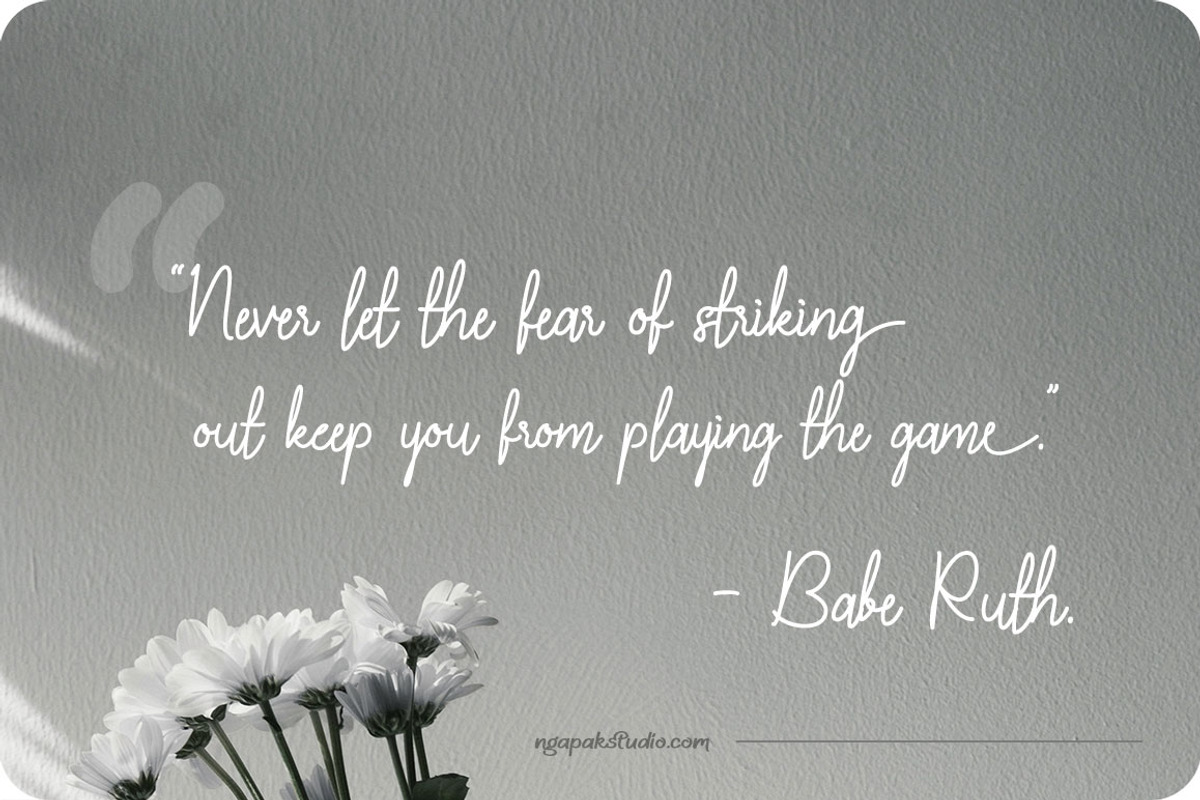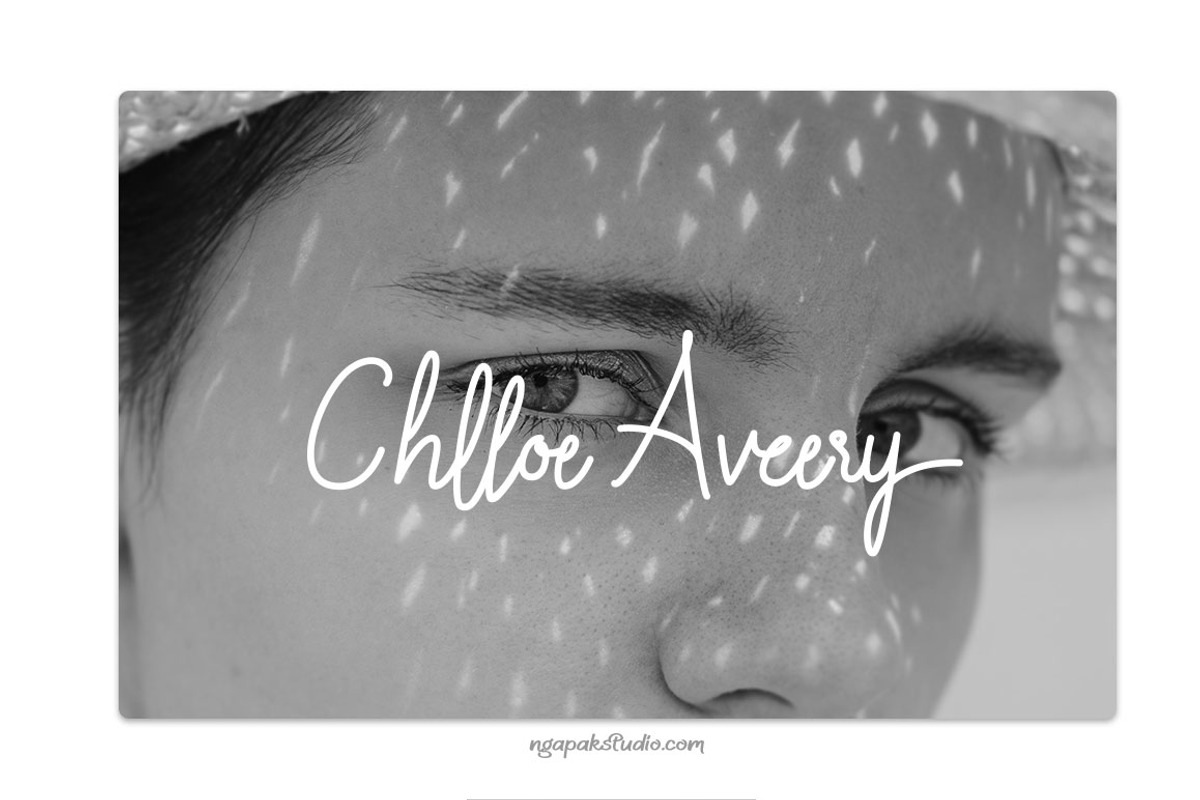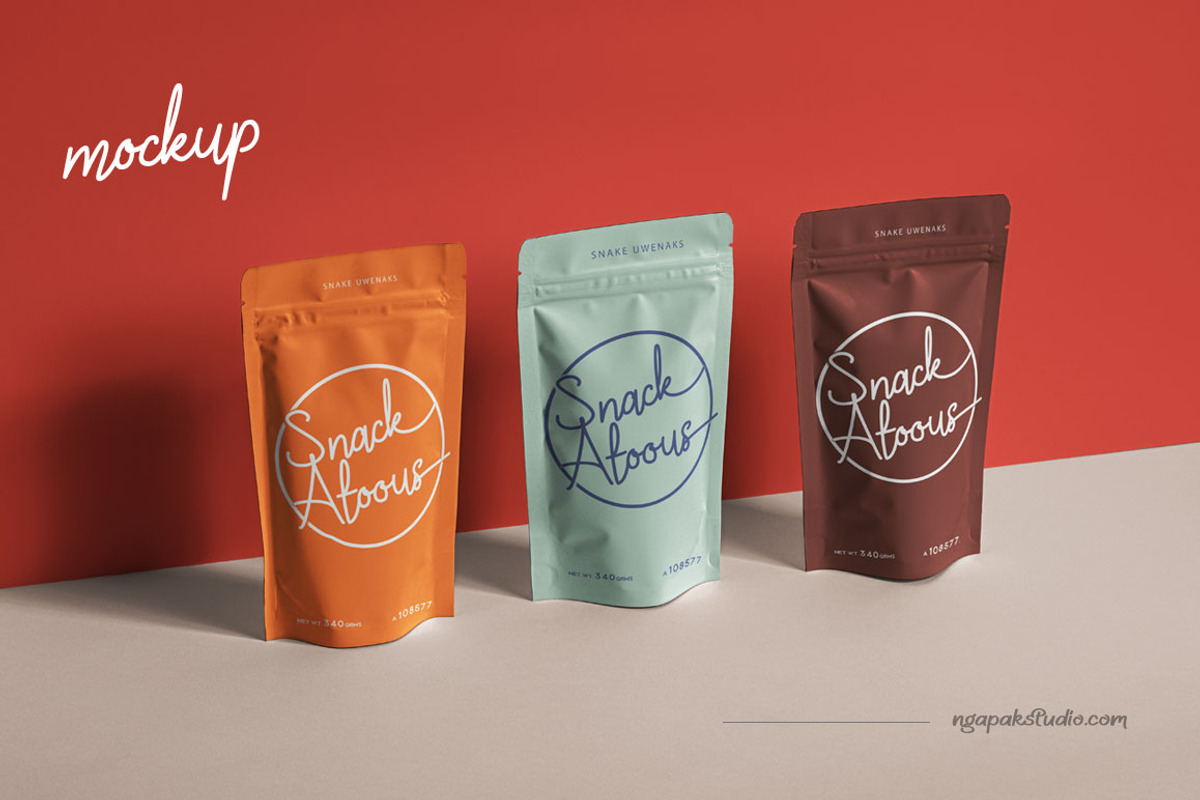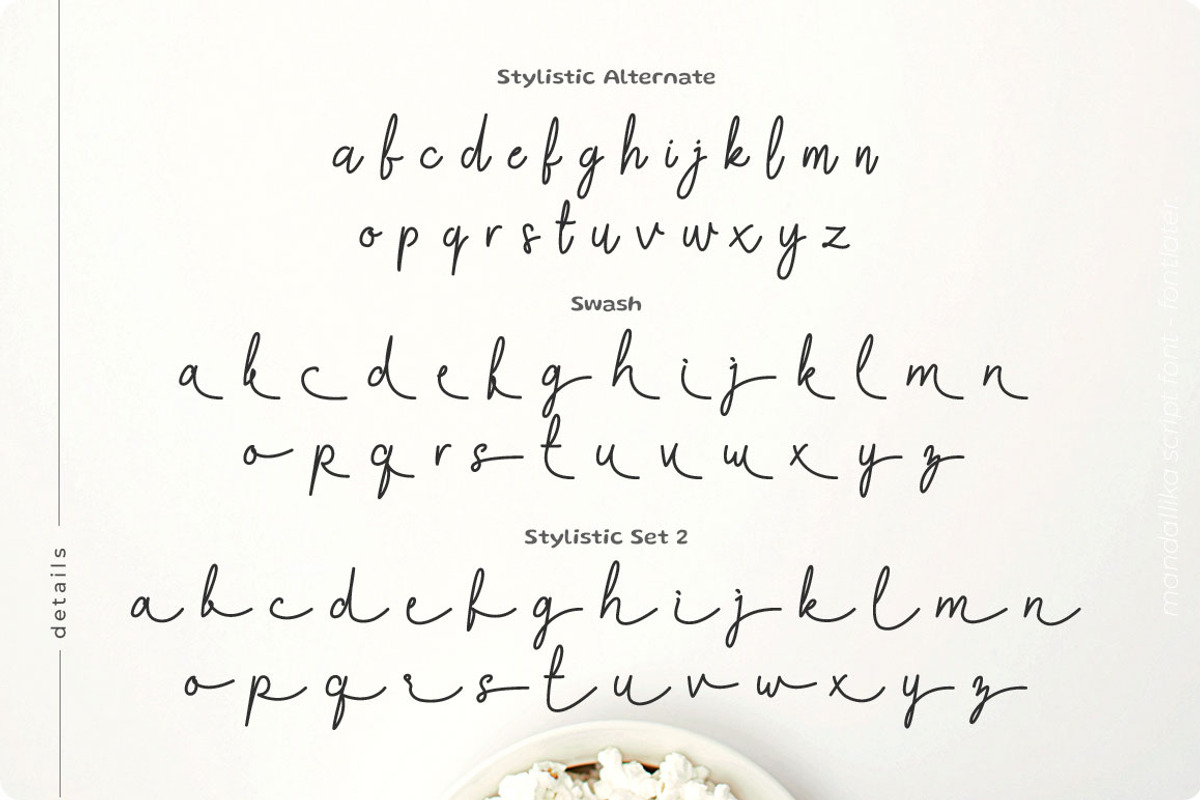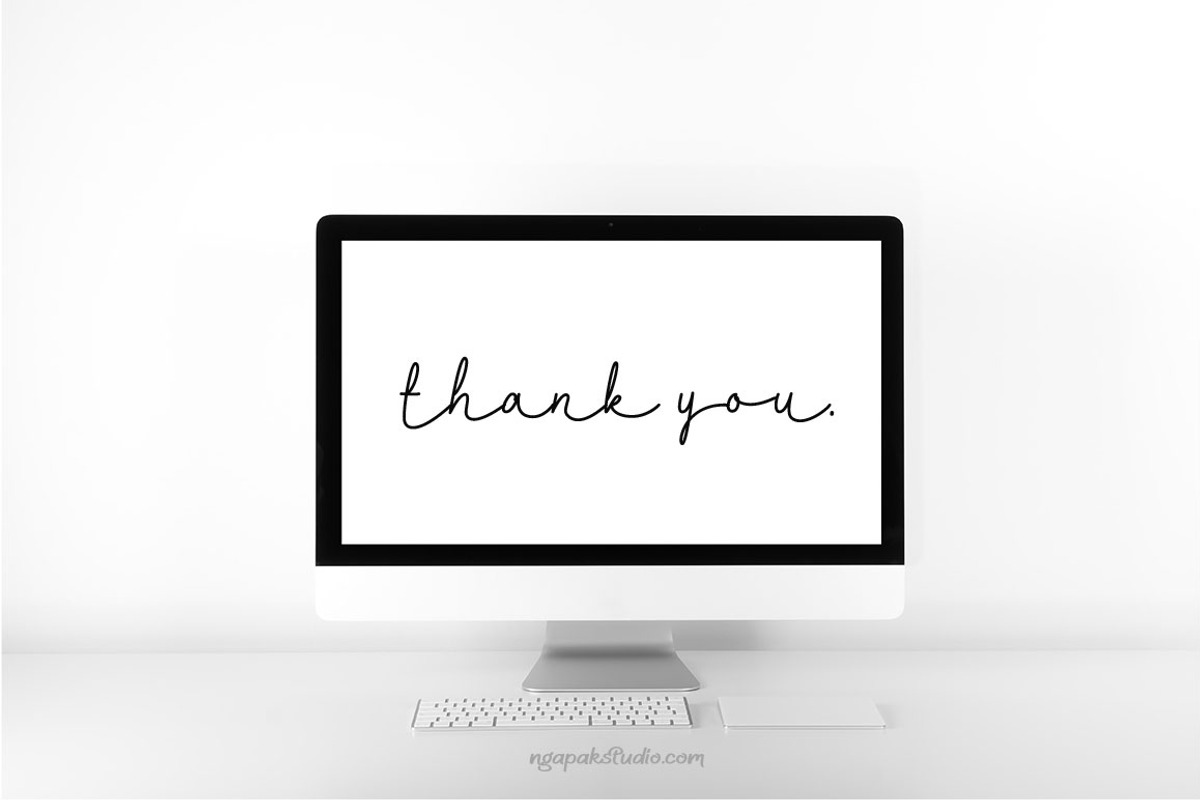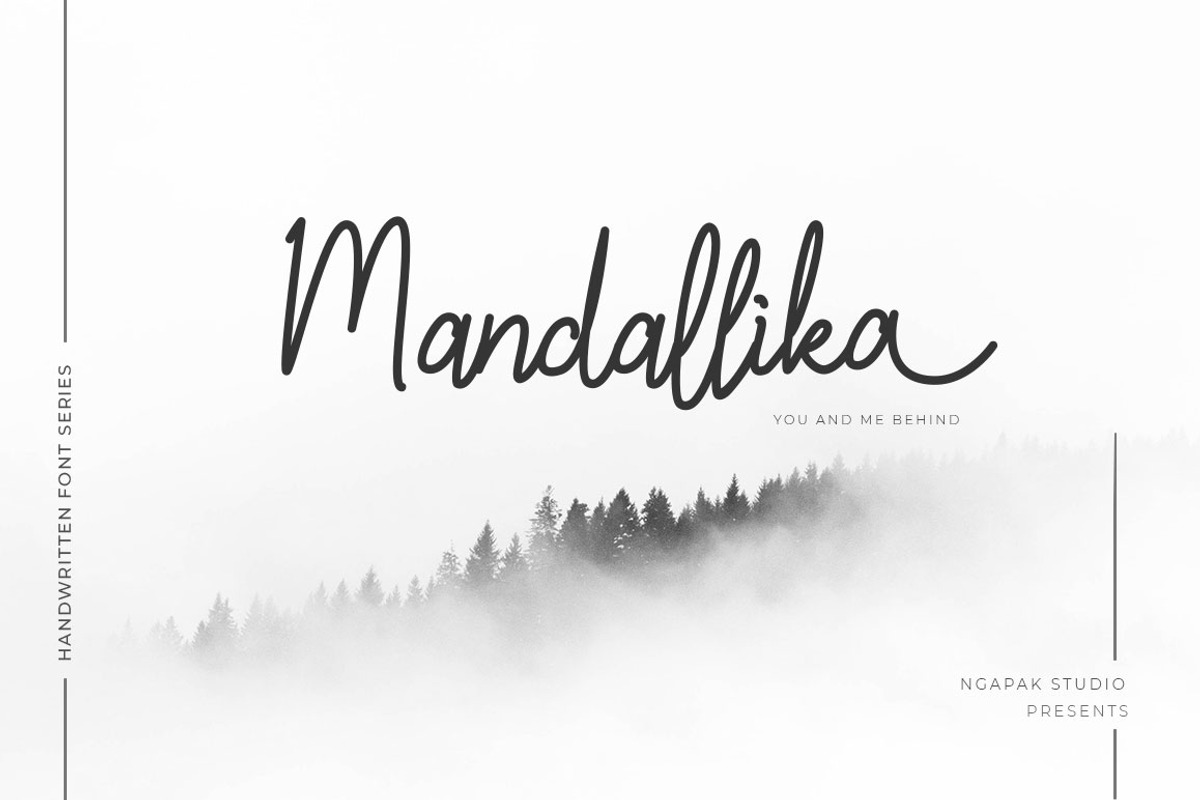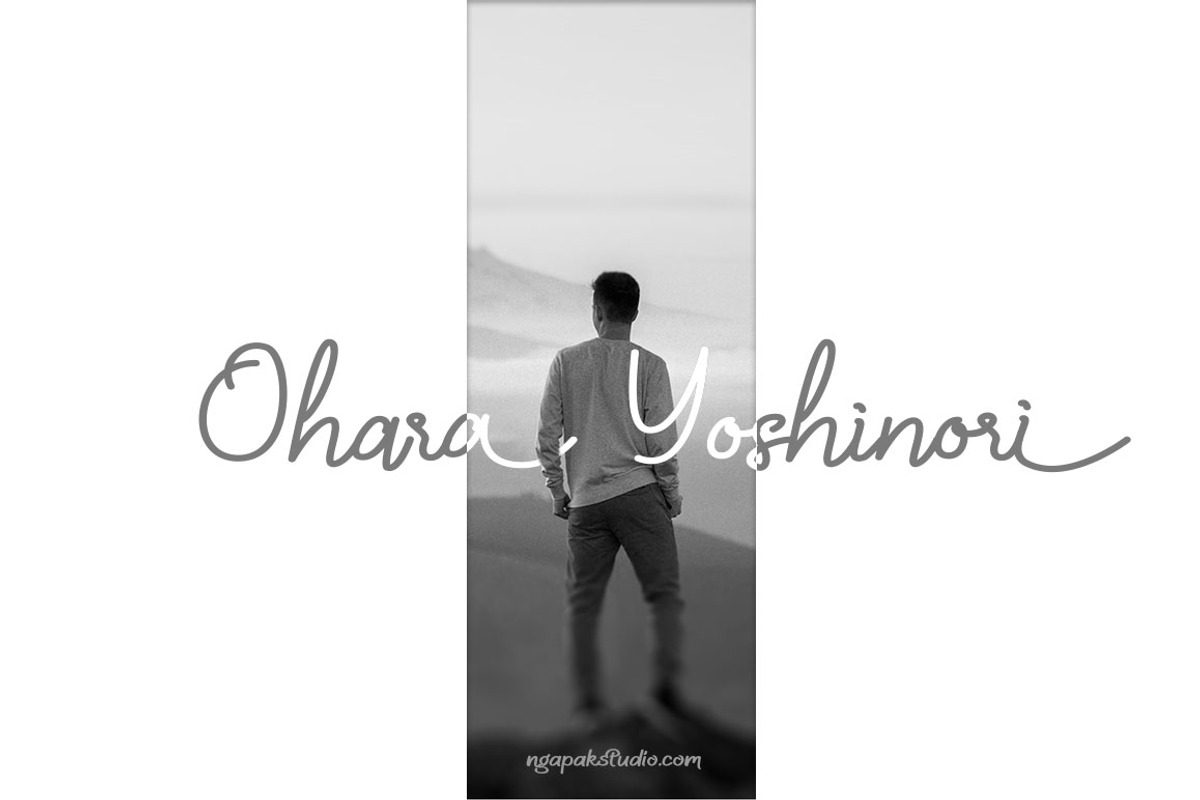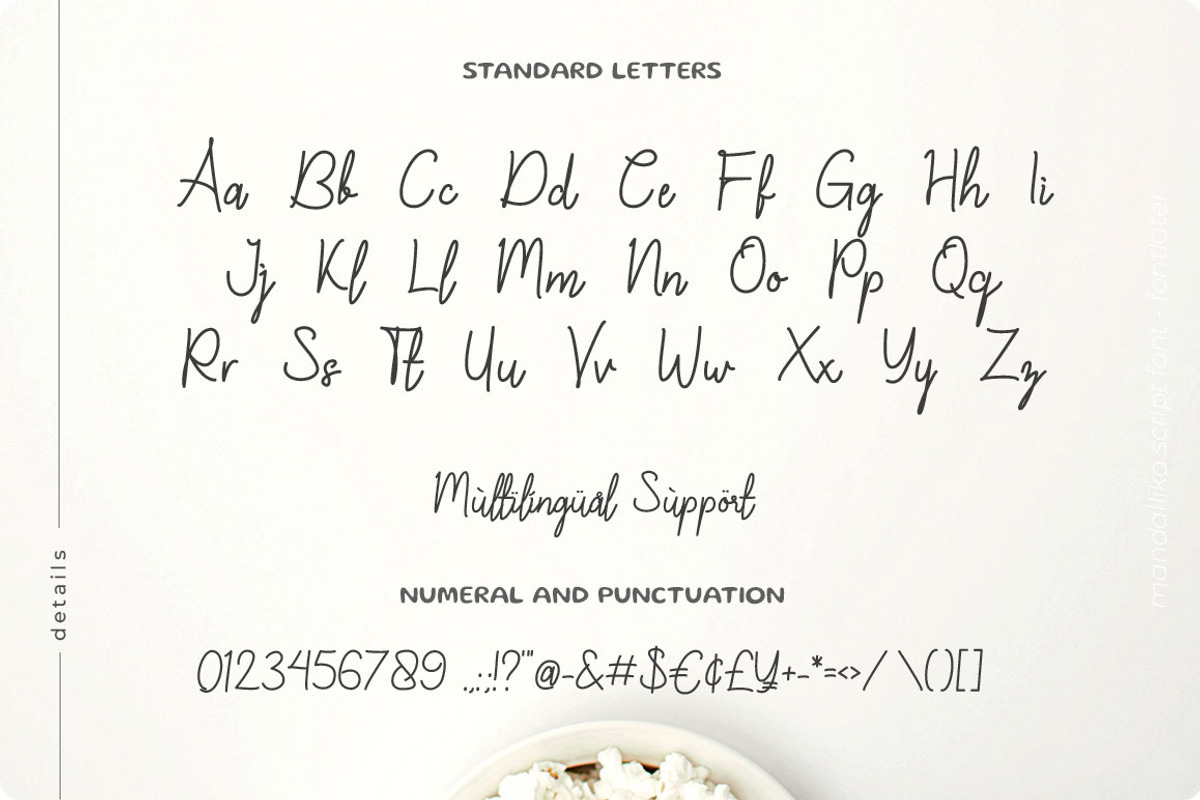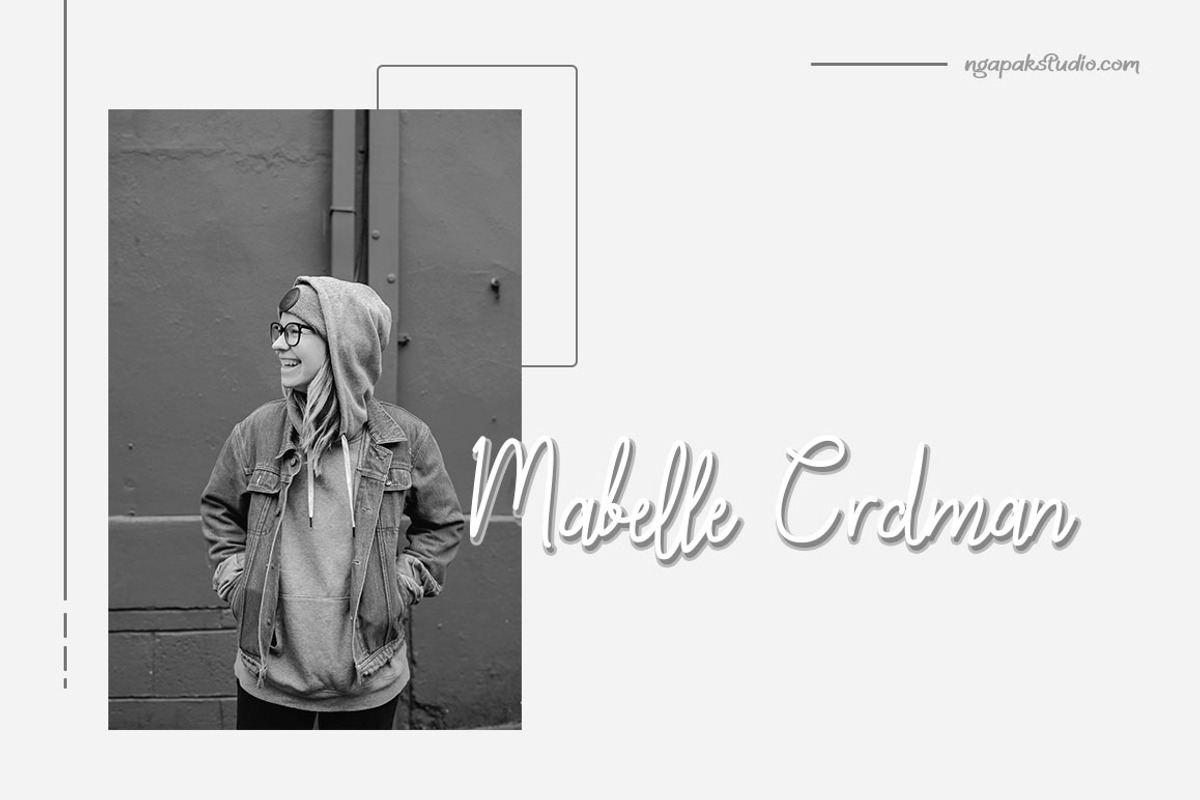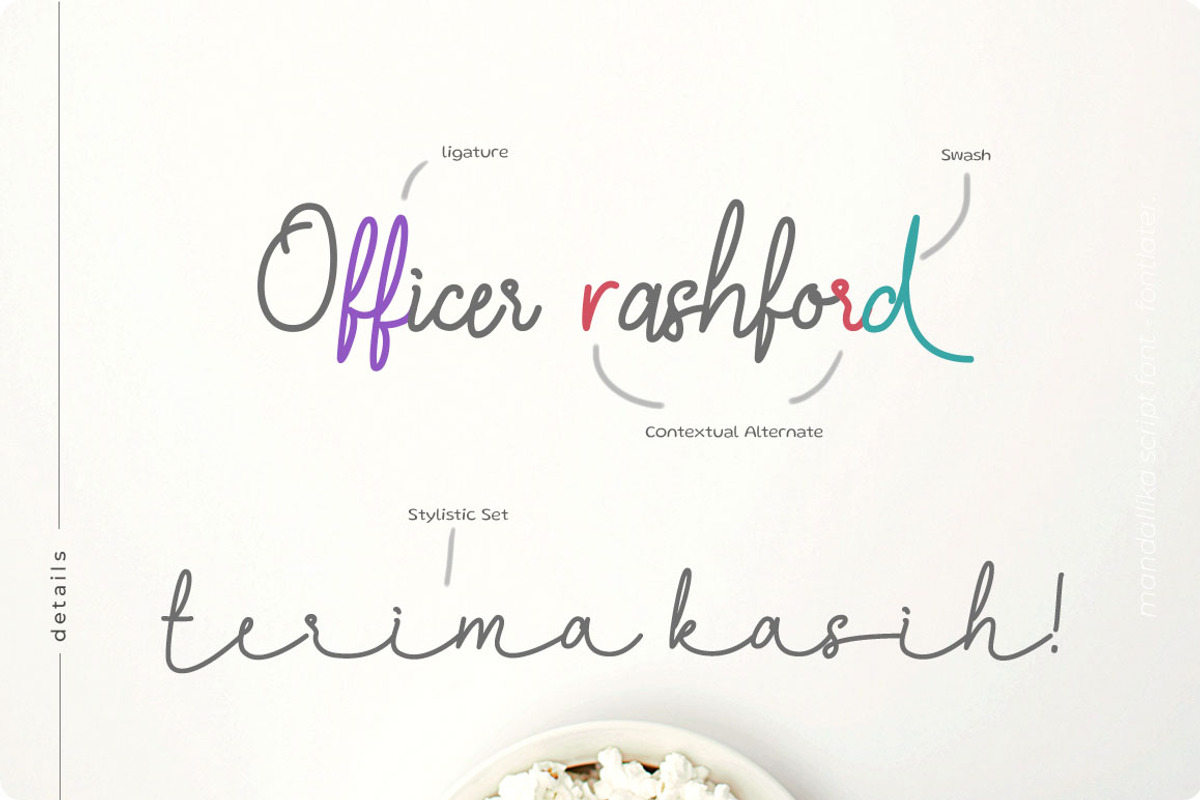
Mandallika | Handwritten Font Series
Mandallika is a simple brush font with a hand lettering that perfect for your project.
Mandallika is perfect for branding projects, wedding, wedding invitation, logo, social media posts, advertisements, product packaging, product designs, label, photography, watermark, invitation, stationery and any projects that need hand lettering monoline typeface taste.
- Ligature & Swash
- Contextual Alternates
- Fonts include multilingual support for; Afrikaans, Albanian, Asu, Basque, Bemba, Bena, Breton, Catalan, Chiga, Cornish, Danish, Dutch, English, Faroese, Filipino, Friulian, Galician, German, Gusii, Indonesian, Irish, Italian, Kabuverdianu, Kalenjin, Kinyarwanda, Luo, Luxembourgish, Luyia, Machame, Makhuwa-Meetto, Makonde, Malagasy, Manx, Morisyen, North Ndebele, Norwegian Bokmål, Norwegian Nynorsk, Nyankole, Oromo, Portuguese, Quechua, Romansh, Rombo, Rundi, Rwa, Samburu, Sango, Sangu, Scottish Gaelic, Sena, Shambala, Shona, Soga, Somali, Spanish, Swahili, Swedish, Swiss German, Taita, Teso, Uzbek (Latin), Vunjo, Zulu.